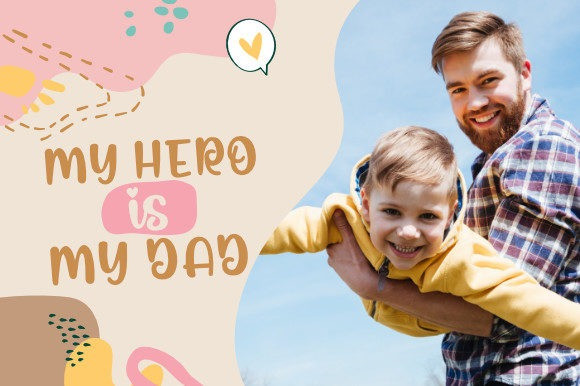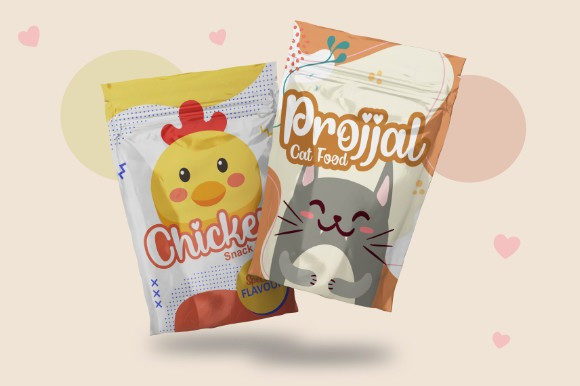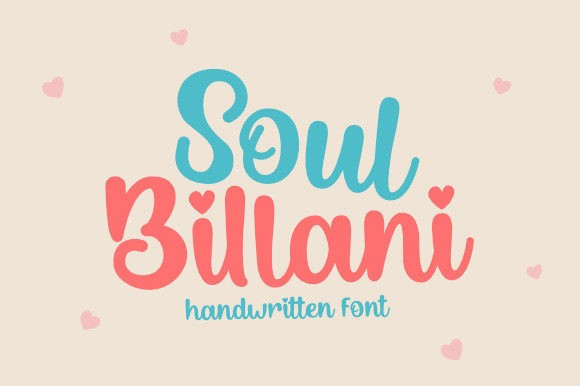
Soul Billani Font
Soul Billani Font is a chic, refined script font that emanates sophistication and elegance. Its stylish alternates and ligatures make this font the perfect match for any project.